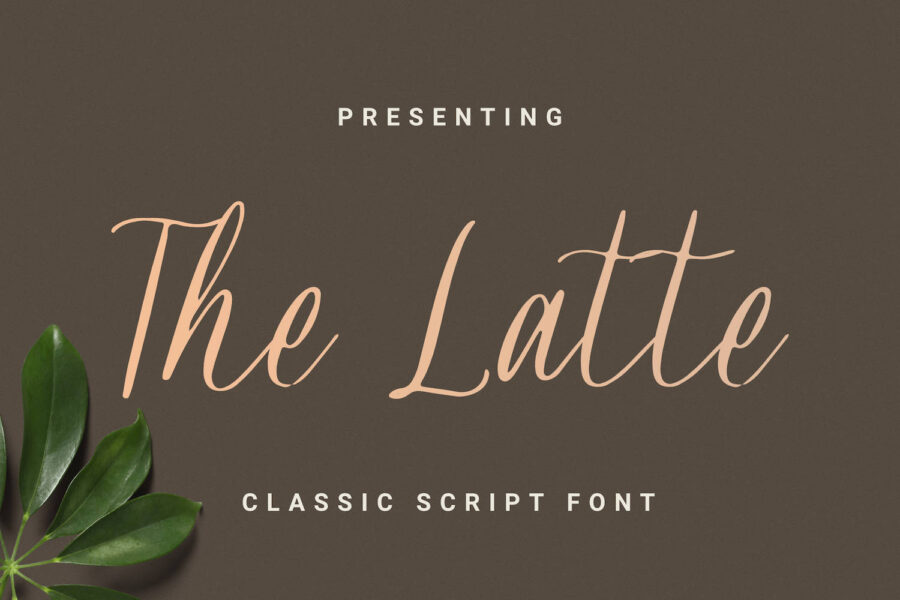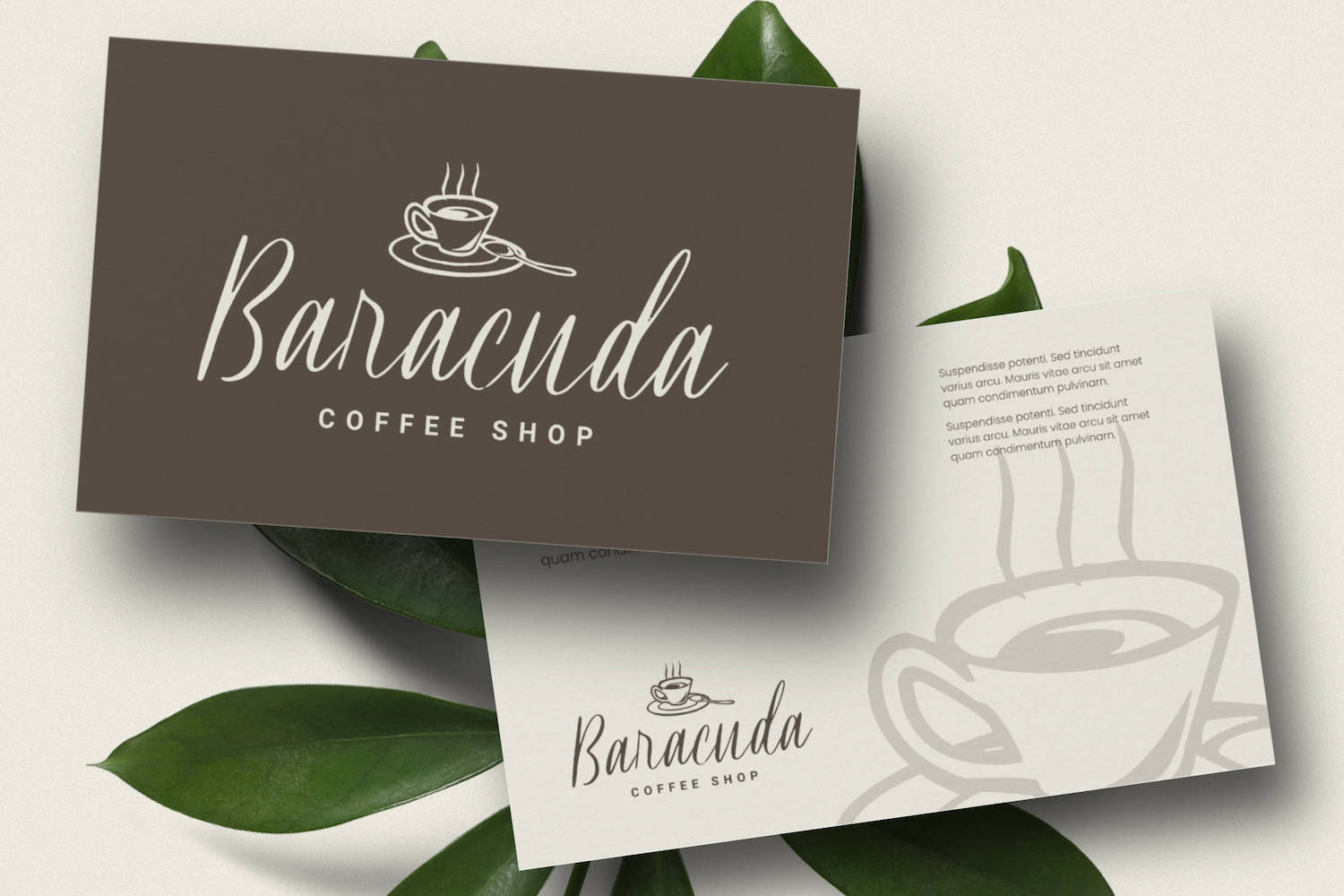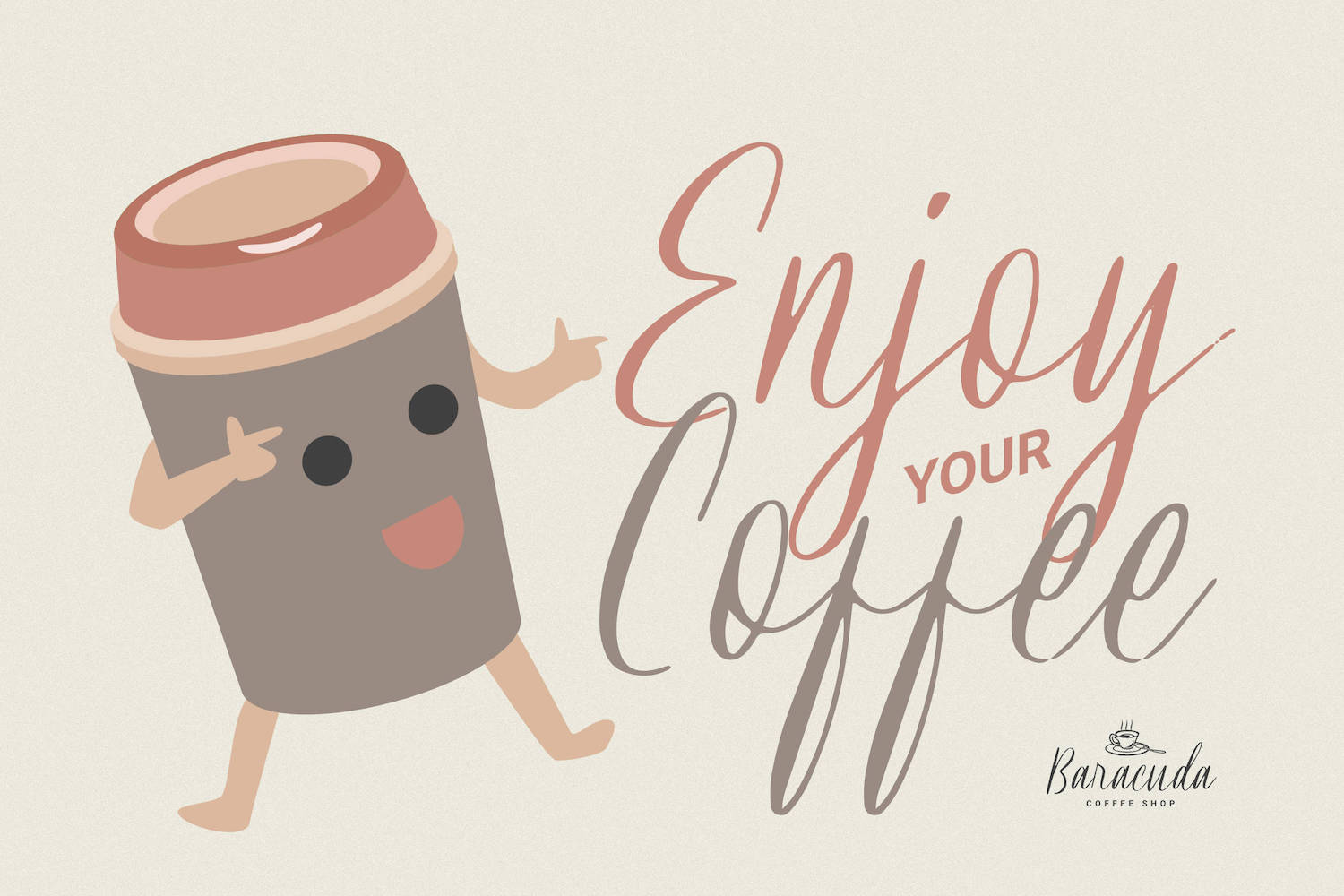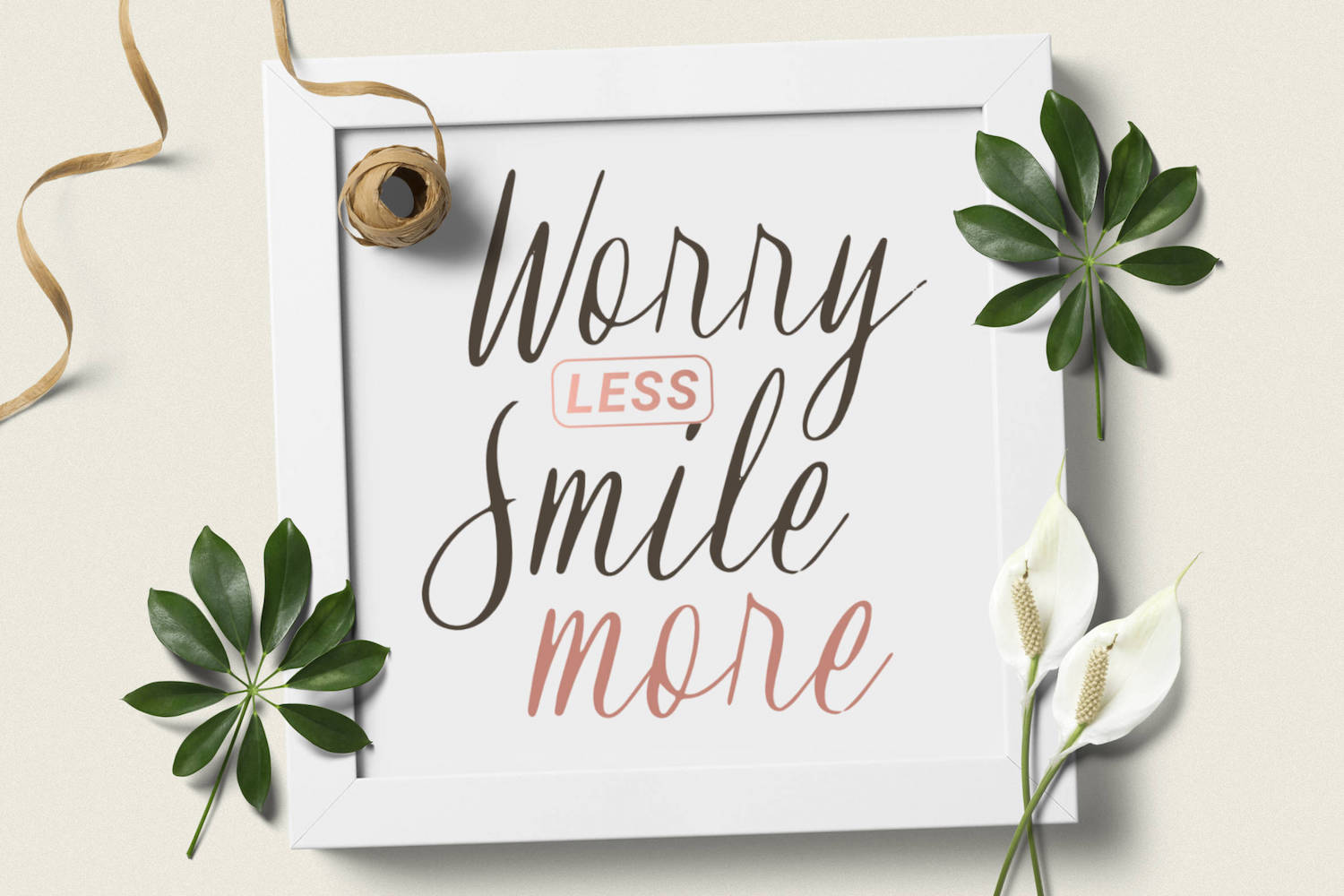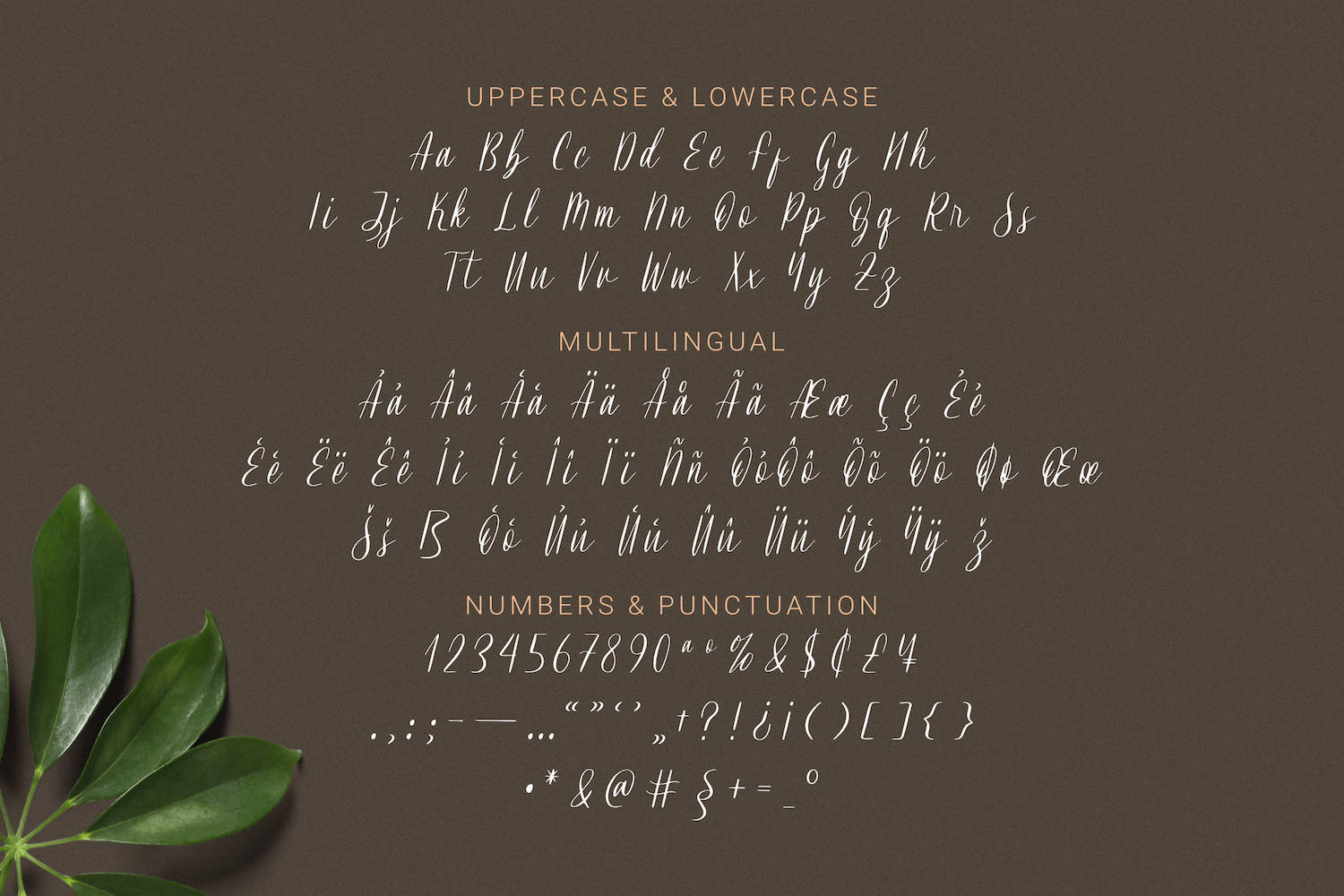
The Latte
The Latte is a refined and elegant classic script font that brings a sense of warmth and sophistication to every design. With its smooth, flowing strokes and natural handwritten feel, this typeface evokes the charm of a personalized note or a café chalkboard menu. Ideal for branding, logos, product packaging, and café-inspired visuals, The Latte offers a cozy and approachable aesthetic while retaining a professional finish.
This font includes a complete set of uppercase and lowercase letters, multilingual support, and a variety of punctuation and numerals to ensure versatility across applications. Whether used for coffee shop signage, wedding invitations, or lifestyle content, The Latte is crafted to create a soft, personal, and stylish impression on any medium.